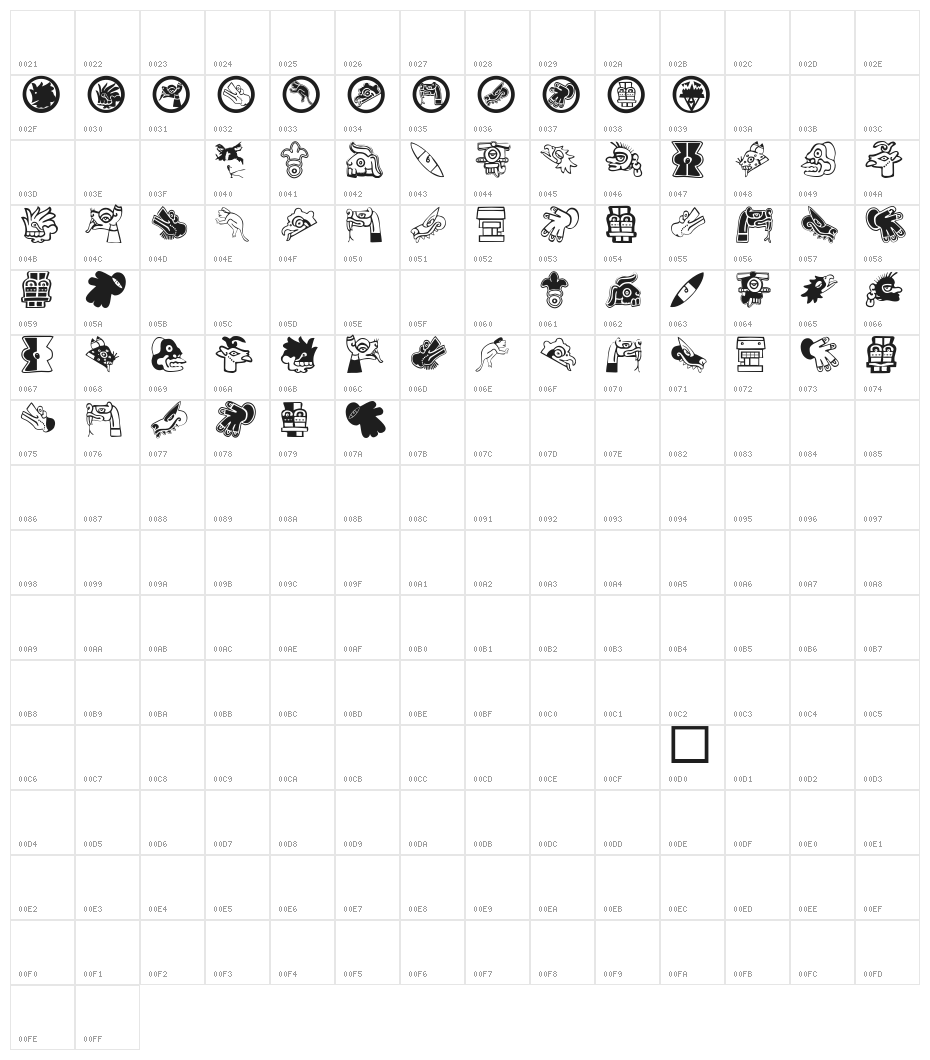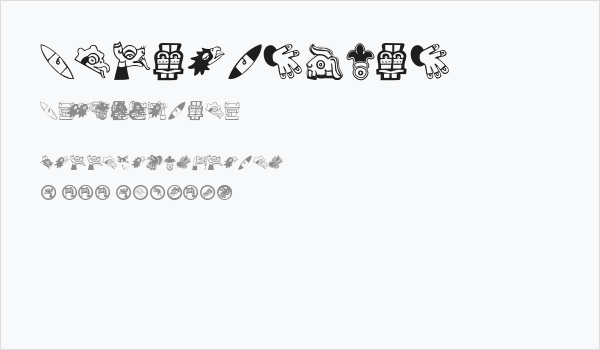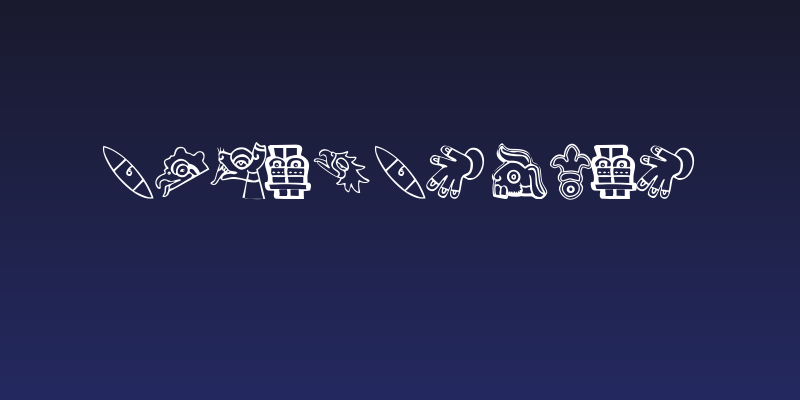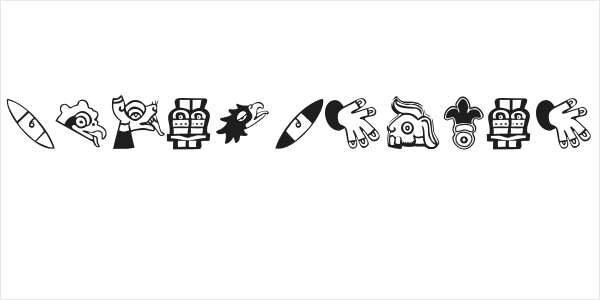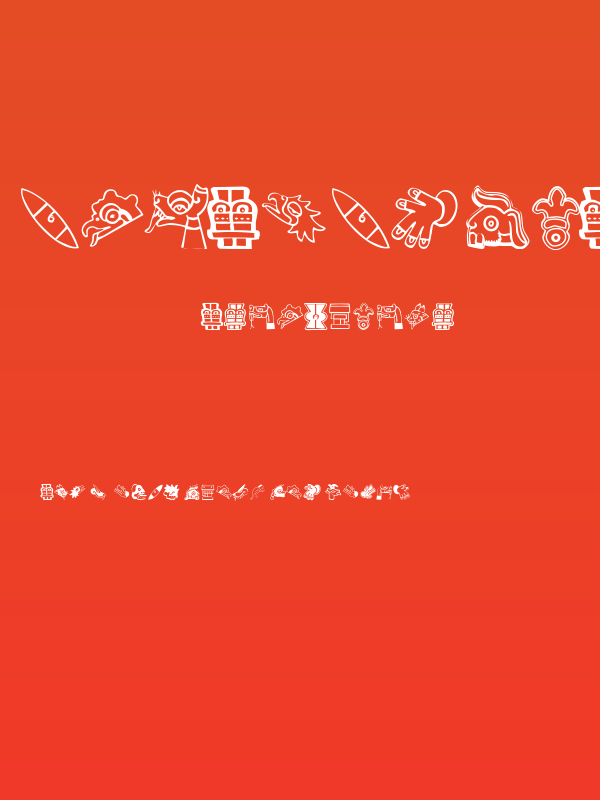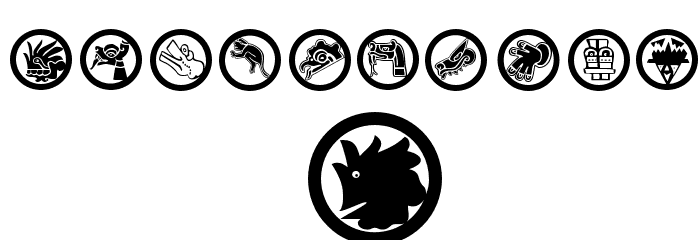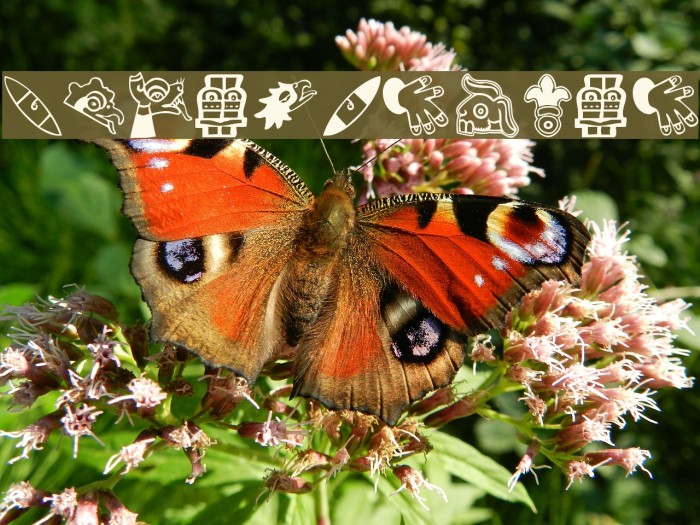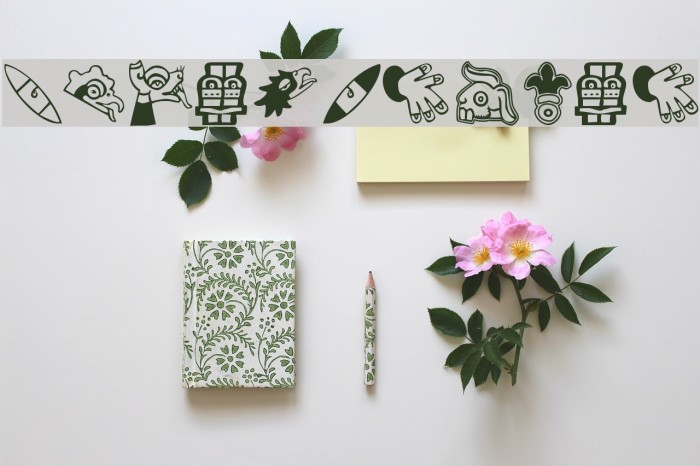
ColtecsBats Font
ColtecsBats Description
A highly decorative and illustrative font inspired by ancient Mesoamerican glyphs, featuring intricate, pictorial letterforms with bold outlines and detailed internal designs. Each character is unique, resembling traditional iconography rather than standard alphabetic forms.
| Overall Style | Decorative, Ancient, Cultural |
| Use Case | Logos, Headlines, Posters, Themed graphics |
| Proposed Projects | Cultural posters, themed event invitations, educational materials about ancient civilizations, museum displays, creative branding for historical or cultural projects. |